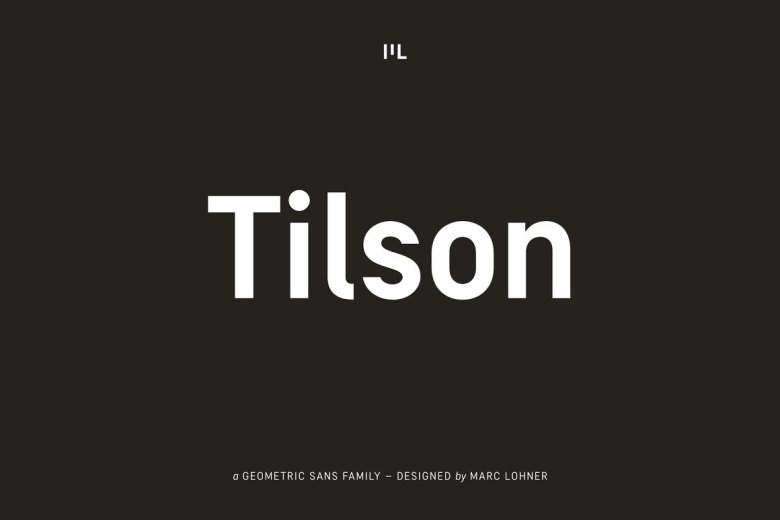
Tilson Font
Introducing Tilson, a versatile workhorse family suited for both texts and headlines with characteristics based on geometric and straight-lined design! Use it to add a techy and masculine vibe to your apps, websites, logos, posters, and more; even though a few friendly rounded details – like the i-dot – add a rather nice personality to it! With more than 200 languages support, lots of opentype features on board, obliques, and weights from Thin to Black, Tilson is a versatile companion for your next design project!
Tilson Geometric Sans Font